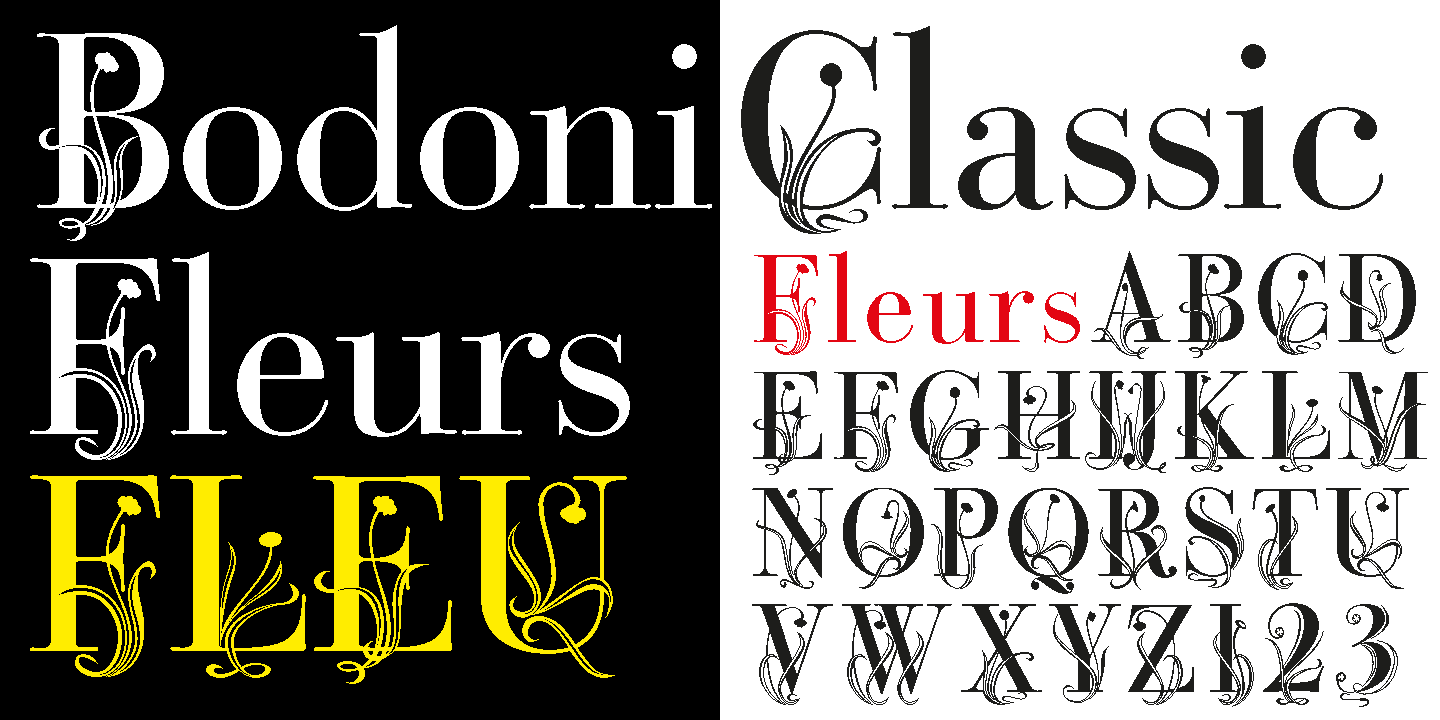
This exquisite typeface excels in luxury perfume packaging, high-end floral arrangements, elegant wedding invitations, premium fashion magazines, botanical art exhibitions, sophisticated beauty brands, fine jewelry catalogs, and refined communications. Its classical floral elegance makes it perfect for projects requiring timeless sophistication and botanical beauty.
Bodoni Classic Fleurs Font creates excitement through its botanical sophistication that captures the eternal marriage of classical typography and natural floral beauty. The font's graceful serifs and flourishing letterforms create an atmosphere of timeless elegance that resonates with audiences seeking refined luxury and natural sophistication. Its meticulously cultivated character variations deliver garden-fresh readability while maintaining distinctive classical personality that reflects the perfect harmony between human artistry and nature's most beautiful creations.
The Bodoni Classic Fleurs Font family features multiple botanical variations including regular, light, bold, ornamental, and flourished styles. Each family member maintains the distinctive classical floral aesthetic while offering different levels of botanical sophistication for various luxury applications. This blooming collection allows designers to create elegant compositions that celebrate the full spectrum of natural beauty from delicate petals to bold botanical statements.